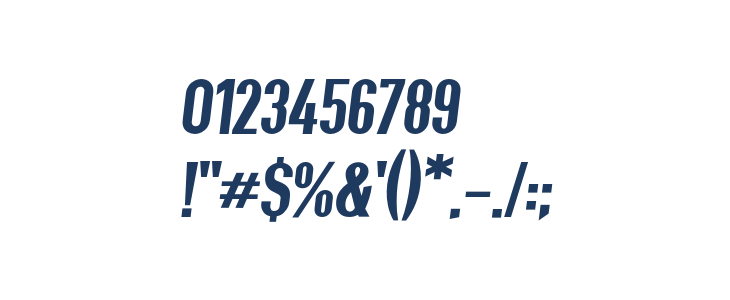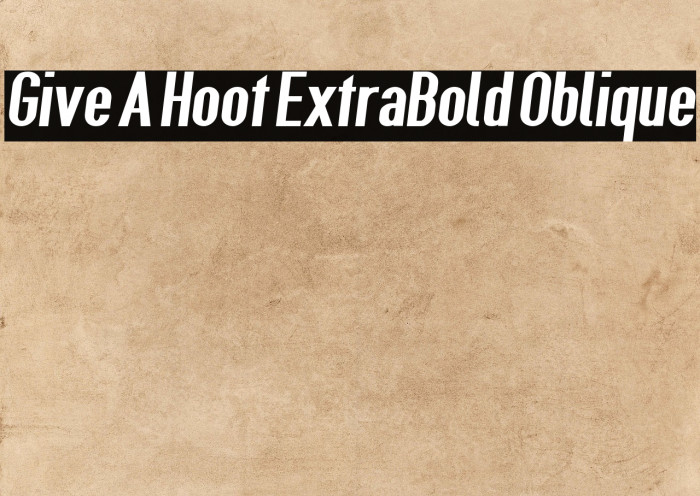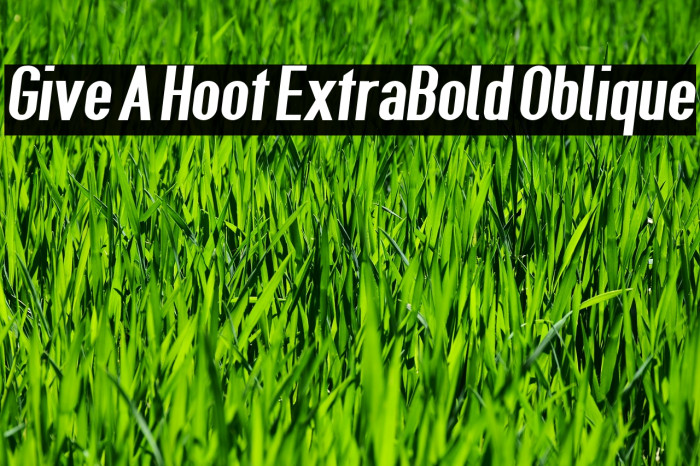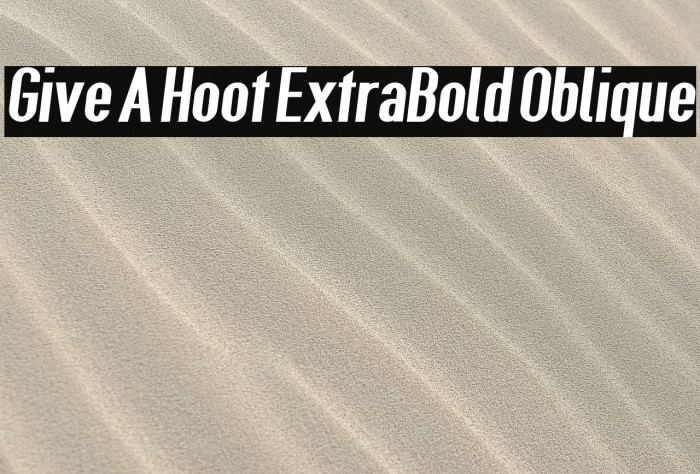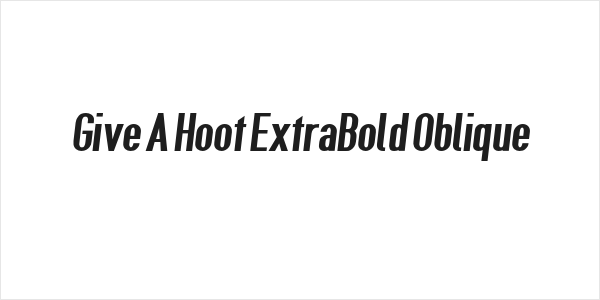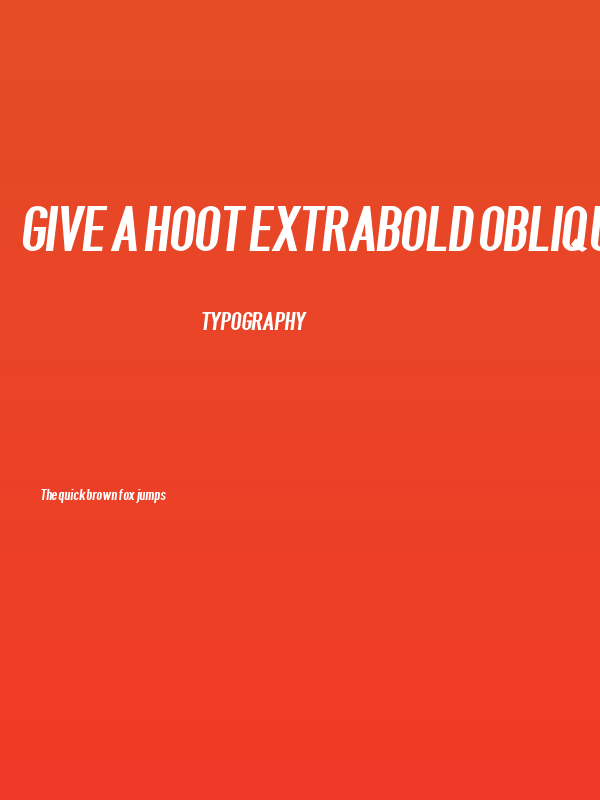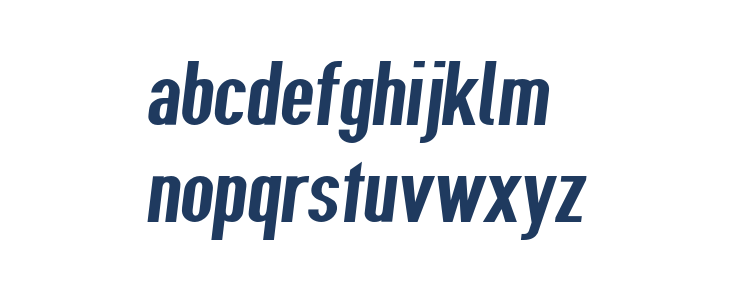
Give A Hoot ExtraBold Oblique Font
Give A Hoot ExtraBold Oblique Description
This font features a bold and dynamic style with an oblique slant, giving it a sense of motion and energy. The characters are extra bold, providing a strong visual impact, making it ideal for attention-grabbing headlines. The uppercase and lowercase letters are well-proportioned, with a consistent slant that adds a modern touch. The numerals are clear and legible, maintaining the bold aesthetic. Special characters are included, offering versatility for various design needs. The overall design is sleek and contemporary, suitable for projects that require a bold statement.
| Proposed Projects | Ideal for headlines, posters, branding, and advertising materials that need a strong visual impact. |